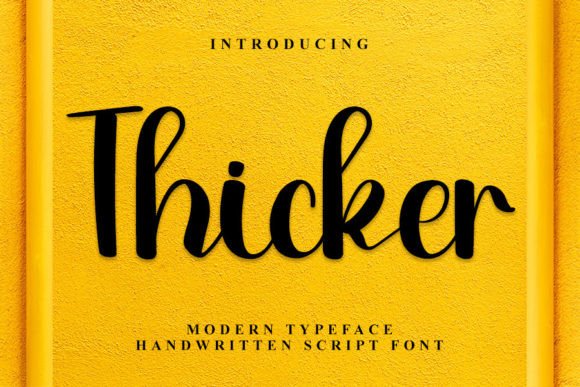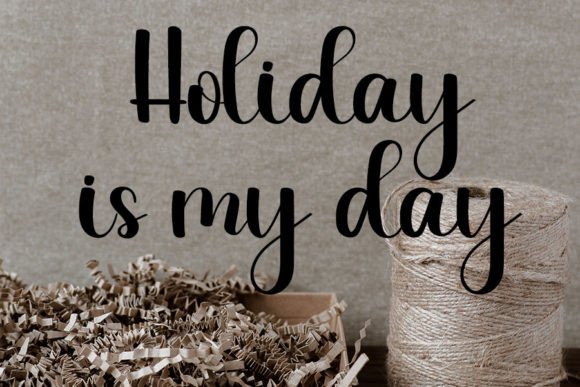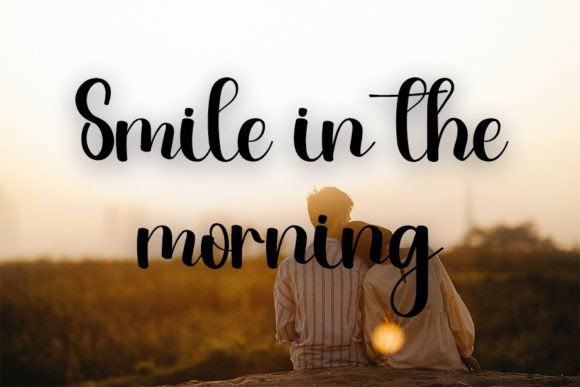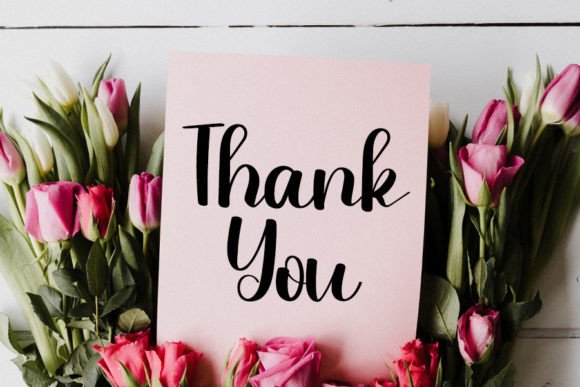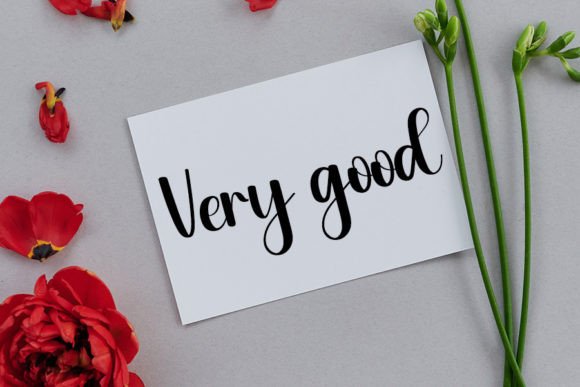
Thicker Font
Add Elegant Charm with Thicker Font
Thicker Font is a neat and beautiful handwritten typeface that adds an elegant touch to your favorite projects. Its distinct and timeless style makes it perfect for creating spectacular designs that stand out. Whether you are working on branding, invitations, posters, or social media graphics, Thicker Font delivers a polished and refined look.
Its smooth strokes and create a classic yet modern aesthetic, helping your designs appear both professional.
Versatile Uses for Thicker Font
Thicker Font is suitable for a wide range of creative projects, including:
• Branding and logos
• Wedding and event invitations
• Posters, flyers, and promotional materials
• Social media content and digital graphics
• Personalized stationery and craft projects
Thanks to its neat and elegant handwritten style, Thicker Font adds charm and sophistication to all your creative ideas.
It features balanced kerning spacing to ensure your text is readable and visually appealing across various sizes and formats.
Why Designers Choose ThickerFont
Designers and creatives appreciate ThickerFont for its combination of neatness and elegance. It adds a personal and polished touch that any project. Whether you are a professional or a hobbyist, ThickerFont helps you create beautiful and memorable typography with ease.
Use ThickerFont to bring elegant charm and style to your next creative project.